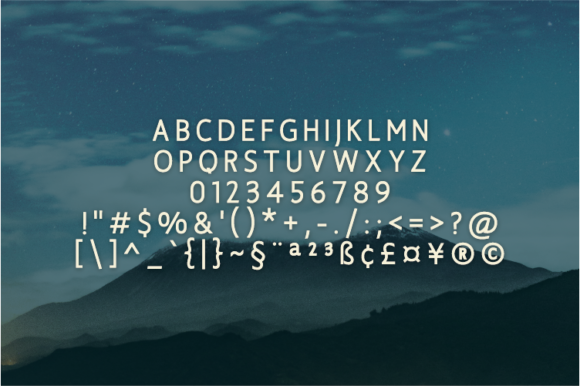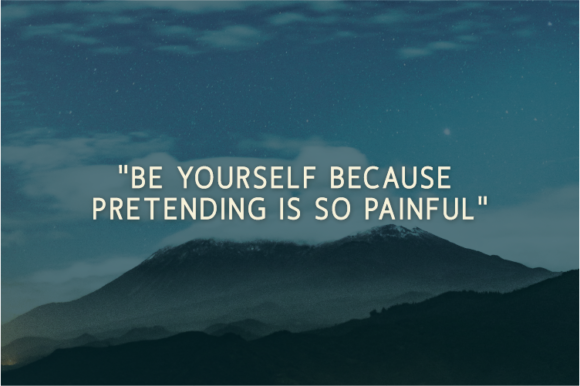
Introduction to Clausty Font
Clausty is a minimal and neat sans serif font.
No matter the topic, this font will be an incredibly asset to your fontsโ library, as it has the potential to elevate any creation .
Key Features of Clausty Font
Why Choose Clausty Font?
Clausty Font offers exceptional quality and versatility, making it a valuable addition to your design toolkit. Whether you’re creating for personal projects or commercial use, Clausty Font delivers professional results.